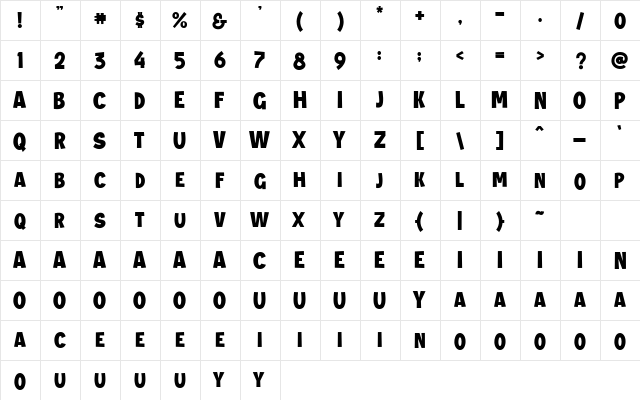
Jungle Adventurer Regular
Design Context for Jungle Adventurer Typeface
Jungle Adventurer offers clean, dependable letterforms without strong stylistic allegiance, making it a practical choice for designers who need flexibility.
Pro Tip: Pair Jungle Adventurer with a font of contrasting weight or personality to build a more expressive typographic hierarchy.